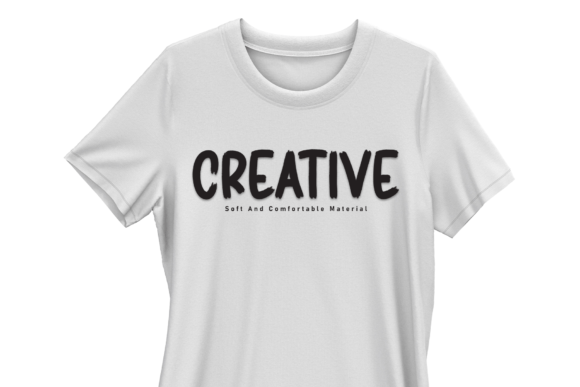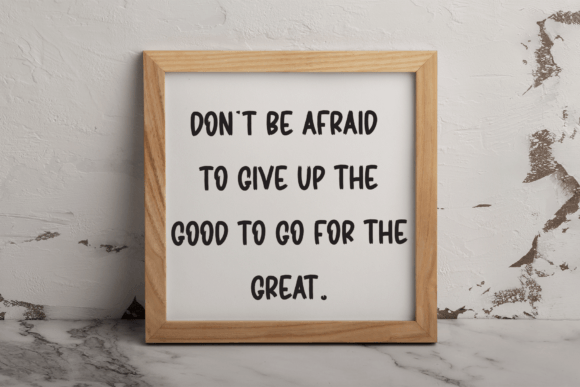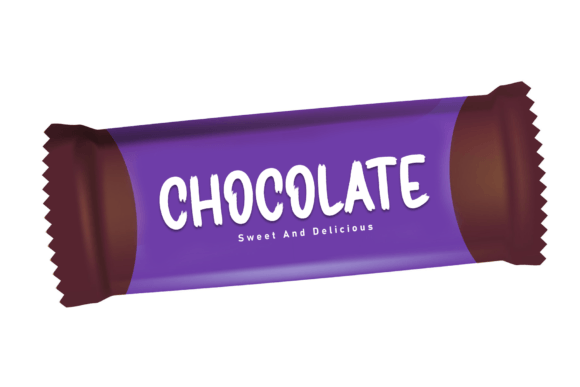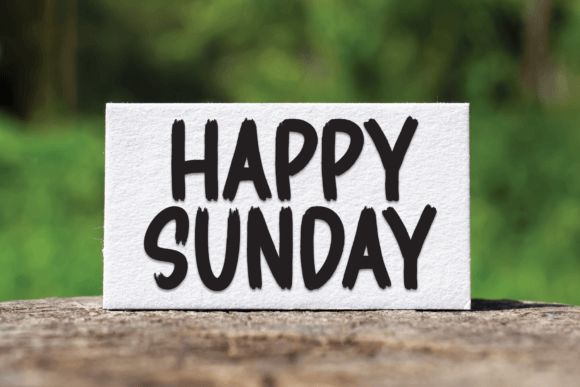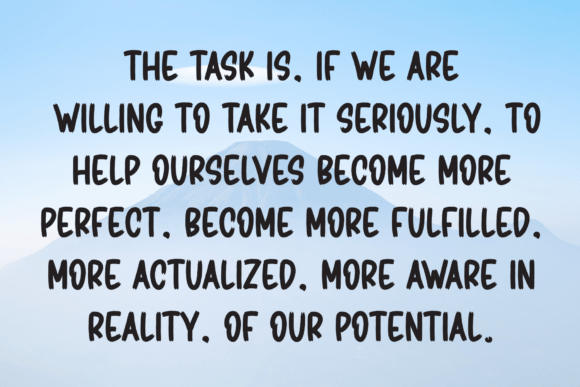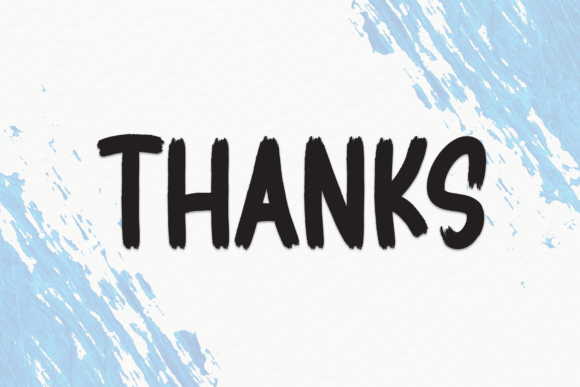
Get Ready to Add a Personal Touch to Your Designs
Have you ever sat at your desk, staring blankly at a blank page or screen, waiting for inspiration to strike? It’s a familiar feeling for many creatives, but it’s also a sign that you’re ready to break free from the ordinary and try something new. For designers, the search for the perfect font can be a game-changer – and that’s where the Brush Handmade Font comes in.
This sweet and friendly handwritten font is a breath of fresh air, offering a natural and unique style that’s sure to elevate your designs. Whether you’re working on a branding project, a blog post, or a social media campaign, the Brush Handmade Font is the perfect companion to help you bring your vision to life. Its versatility and charm make it a valuable asset for designers, allowing you to experiment and push the boundaries of creativity.
Brush Handmade Font Key Features
- Font Family: Brush Handmade is a unique, hand-drawn font designed to evoke a sense of elegance and sophistication.
- Size: The font family consists of multiple weights, ranging from 100 to 900, allowing for precise control over line thickness and visual impact.
- Unique Characteristics: Brush Handmade features organic, hand-crafted letterforms with subtle imperfections, giving it a distinctive, human touch that sets it apart from more uniform fonts.
Brush Handmade Font Review
I recently had the chance to work with the Brush Handmade Font, and I have to say, it’s a charming addition to any design project. ✨ Here are some of its standout features:
- Unique, hand-crafted aesthetic that adds a touch of personality to your design
- Extensive character set, including a wide range of punctuation and special characters
- Smooth, flowing lines that are perfect for creating a sense of movement and energy
- Works well in both digital and print applications
- ⚠️ Limited support for non-English languages, which may be a concern for projects with a global audience
- ⚠️ Some characters may not render correctly in certain fonts or font sizes
- ⚠️ Not ideal for projects that require a high level of precision or consistency
Overall, I think the Brush Handmade Font is a great choice for designers looking to add some personality and whimsy to their work. While it may not be suitable for every project, it’s a versatile and charming font that can add a unique touch to your designs. Just be aware of its limitations, and use it thoughtfully to get the most out of it.
Getting the Most Out of Brush Handmade Font
To get the most out of Brush Handmade Font, try the following:
- Use it for titles and headings to add a touch of elegance.
- Combine it with other fonts to create a unique and interesting typography.
- Experiment with different font sizes and colors to create contrast and emphasis.
Brush Handmade Font is perfect for:
- Food and drink labels.
- Artistic and creative projects.
Alternatives to Brush Handmade Font
Great Vibes is a beautiful, elegant script font that is perfect for creating a sense of sophistication and refinement. It is ideal for use in wedding invitations, luxury brands, and high-end packaging. Compared to Brush Handmade Font, Great Vibes has a more polished and refined feel, making it suitable for more formal applications.
Alex Brush is a high-end script font that is designed to evoke a sense of elegance and sophistication. It is perfect for use in luxury brands, high-end packaging, and creative projects. Compared to Brush Handmade Font, Alex Brush has a more refined and polished feel, making it suitable for more formal applications.
Carolyna Pro is a modern script font that is designed to be versatile and elegant. It is perfect for use in creative projects, branding, and packaging. Compared to Brush Handmade Font, Carolyna Pro has a more modern and sleek feel, making it suitable for a wider range of applications.